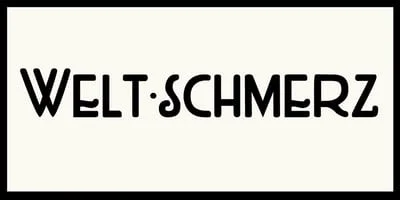
Weltschmerz Font
Weltschmerz Font is ideal for philosophical publications, melancholic poetry collections, existential literature projects, contemplative art galleries, introspective therapy materials, thoughtful mental health campaigns, deep indie music albums, and profound artistic expression platforms. This contemplative typeface brings philosophical depth and existential beauty to any design project exploring the profound sadness and world-weariness of the human condition.
What makes Weltschmerz Font exciting is its profound embodiment of German romantic melancholy combined with existential sophistication that perfectly captures the bittersweet awareness of life's imperfections and the beautiful sadness of deep philosophical contemplation. The thoughtful letterforms feature melancholic curves and contemplative proportions that create an unmistakably profound appearance. Each character reflects deep emotional understanding, making it ideal for projects that explore existential themes, embrace melancholy beauty, and find meaning in the profound sadness of human existence.
The Weltschmerz Font family typically includes regular and italic weights with complete uppercase and lowercase letters, numbers, punctuation marks, and philosophical symbols. Many versions feature additional contemplative decorative elements, existential motifs, and melancholic symbols that enhance the philosophical aesthetic and provide creative flexibility for literary and artistic design applications.
Whether you're developing philosophical literary brands or creating contemplative artistic materials, Weltschmerz Font offers unmatched existential authority and melancholic sophistication. This profound typography choice transforms ordinary text into deep philosophical experiences that resonate with audiences seeking meaningful contemplation and existential understanding. The font's contemplative construction ensures exceptional emotional depth across philosophical applications while maintaining its distinctive weltschmerz character that makes every design project feel like a journey into the beautiful sadness where profound understanding meets melancholic wisdom in perfect existential harmony.